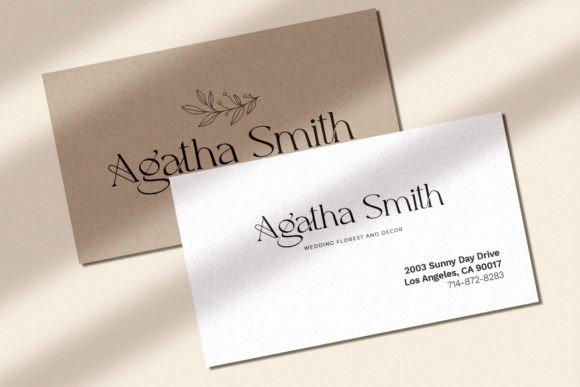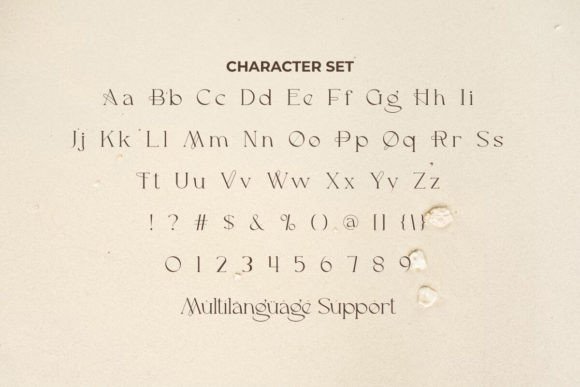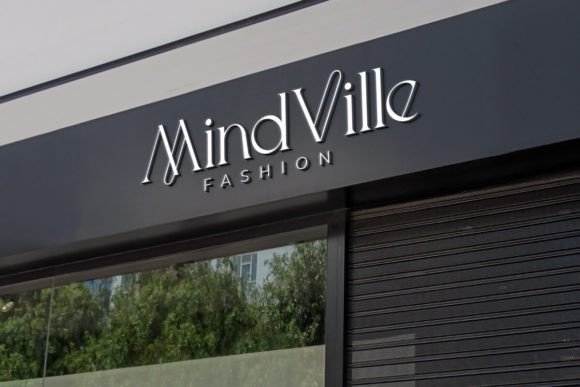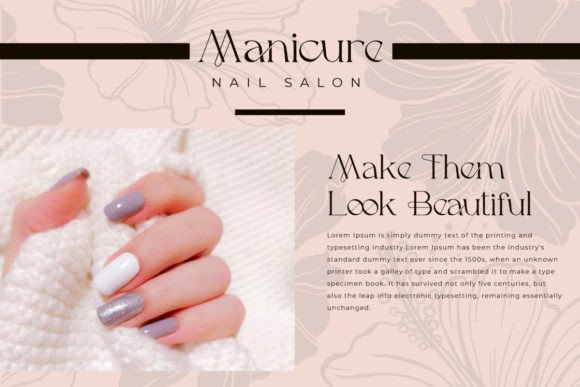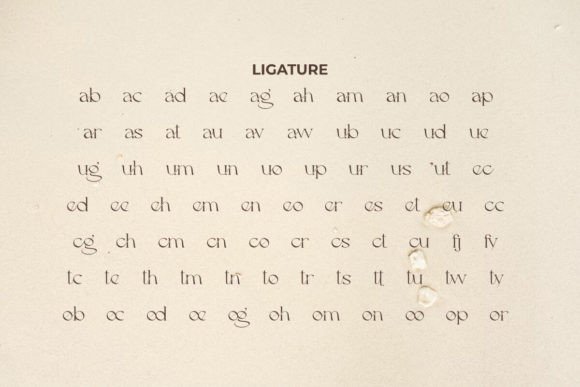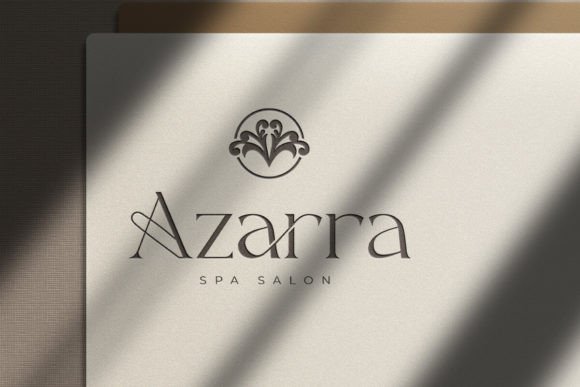
Discover the Perfect Touch of Elegance with the Best Augment Font
Have you ever been scrolling through a beautifully designed magazine or website, and suddenly, you’re stopped in your tracks by a stunning font that elevates the entire visual experience? That’s the magic of a well-crafted display font like the Best Augment Font. This classy serif typeface is designed to bring a touch of luxury to any project, making it perfect for industries that value elegance and sophistication.
The Best Augment Font is more than just a stylish font – it’s a valuable tool for designers who want to add a premium feel to their work. With its stunning character set, perfectly managed spacing, and PUA encoding, this font is a game-changer for anyone looking to create visually stunning projects. Whether you’re working on a brand logo, business card, or website, the Best Augment Font is sure to impress.
Best Augment Font Key Features
- Unique Character Set: Includes a wide range of special characters, including mathematical symbols, currency signs, and language-specific characters.
- Multi-Lingual Support: Designed to support multiple languages, including Latin, Cyrillic, Greek, and many others, making it a versatile font choice.
Best Augment Font Review
I recently had the chance to work with the Best Augment Font, and I’m excited to share my honest thoughts on this design asset.
- Unique and Modern Design: The Best Augment Font has a sleek, modern aesthetic that makes it perfect for contemporary designs.
- High-Quality Vectors: The font files are clean, crisp, and well-organized, making it easy to work with.
- Excellent Character Set: The font includes a wide range of characters, including international symbols and punctuation marks.
- Limited Font Weights: The Best Augment Font only comes in a few font weights, which can limit its versatility.
- Not Ideal for Small Text: The font’s design can make small text difficult to read, so it’s best to use it for larger headings and titles.
The Best Augment Font is a solid choice for designers looking for a modern, high-quality font. While it has some limitations, its unique design and excellent character set make it a great addition to any design project. With a bit of creativity and planning, you can overcome its limitations and achieve amazing results.
The Best Augment Font is ideal for:
- Creating visually appealing titles and headings
- Adding a touch of elegance to digital designs
- Enhancing the readability of text in presentations and documents